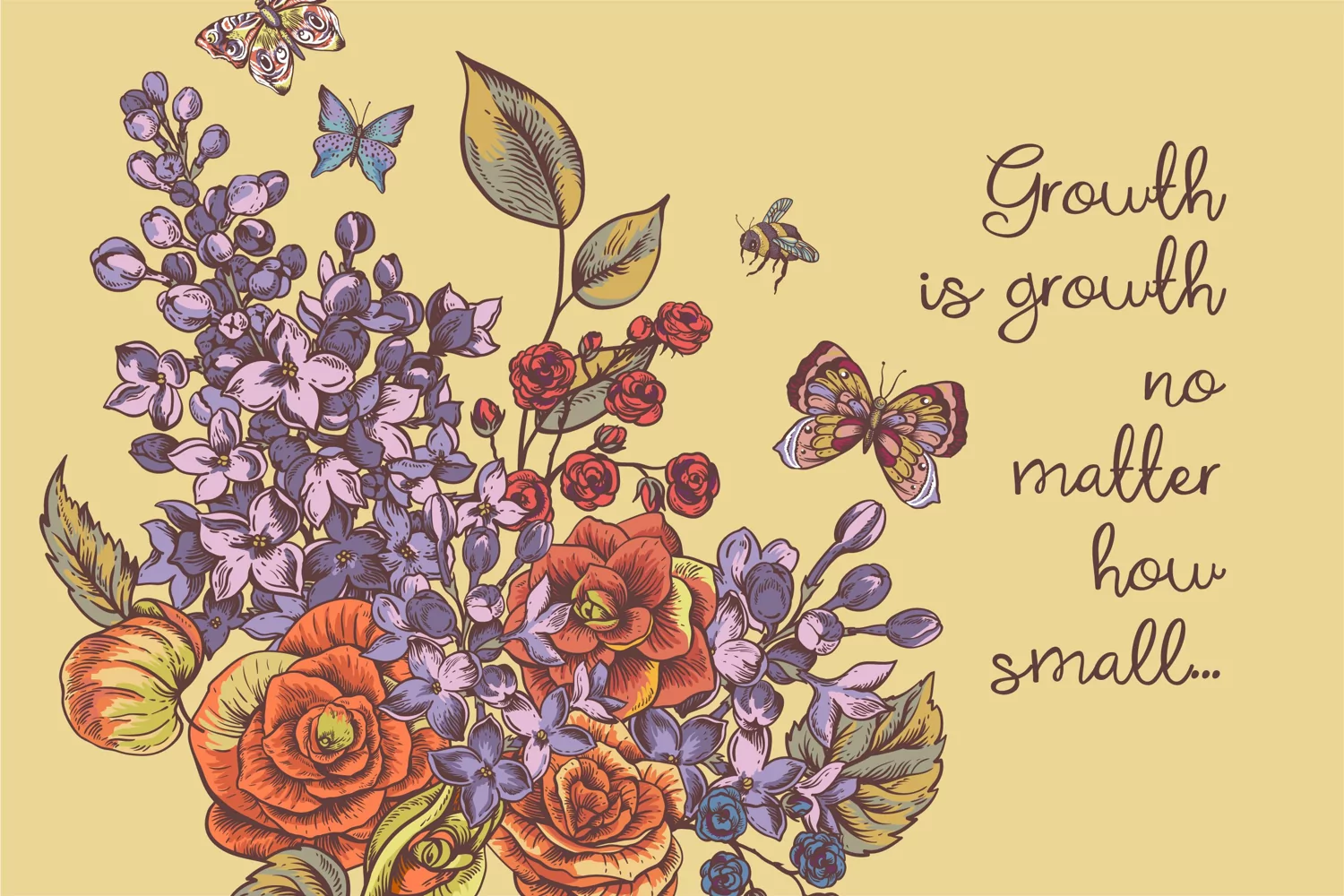
Bigonia is a delicate and round lettered handwritten font. No matter the topic, this font will be an incredible asset to your fonts’ library, as it has the potential to elevate any creation. Includes regular and bold.